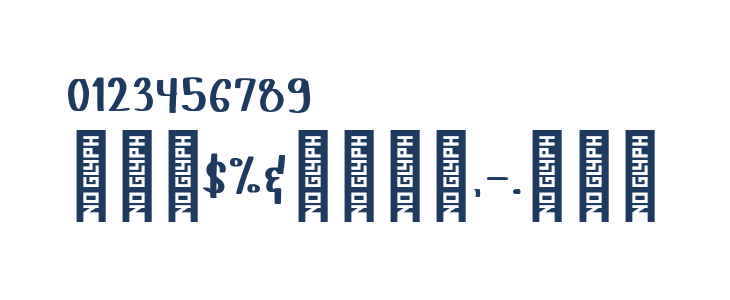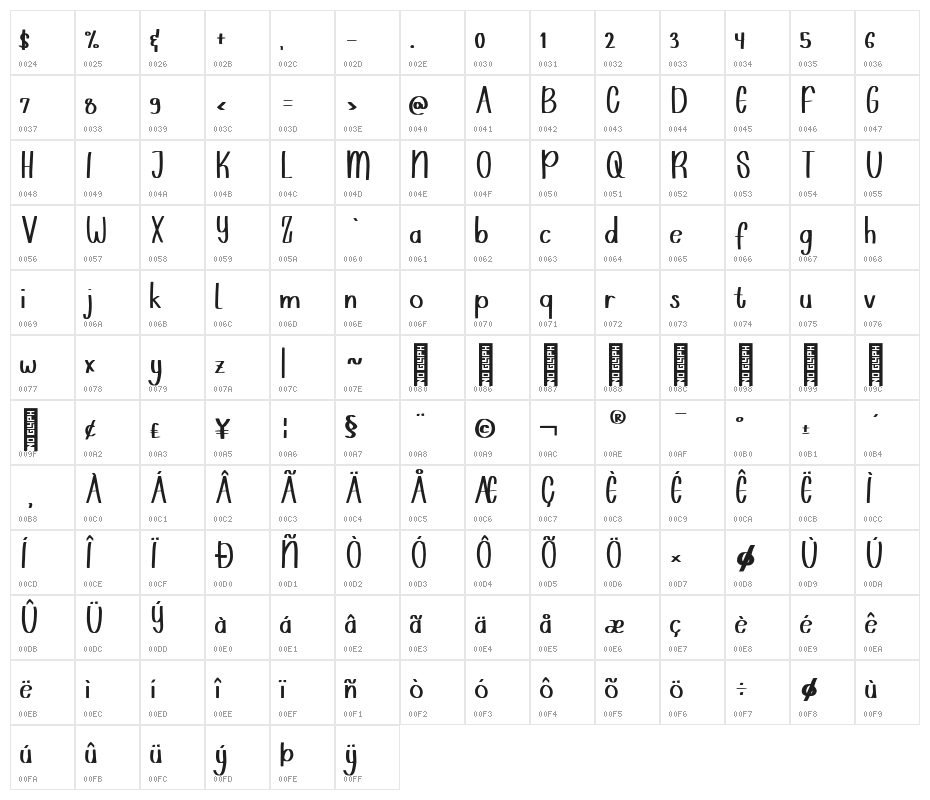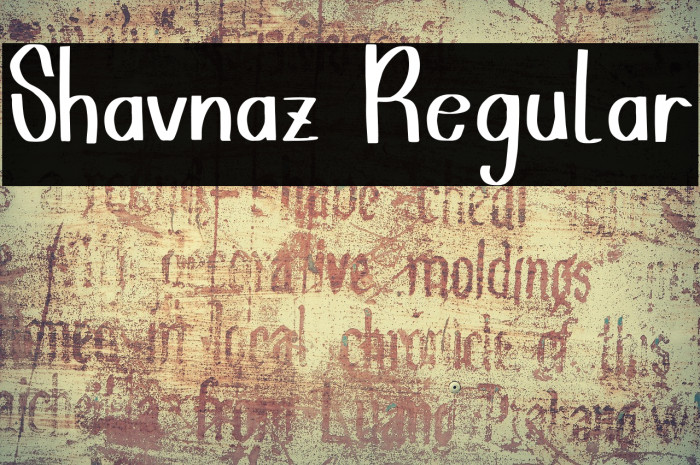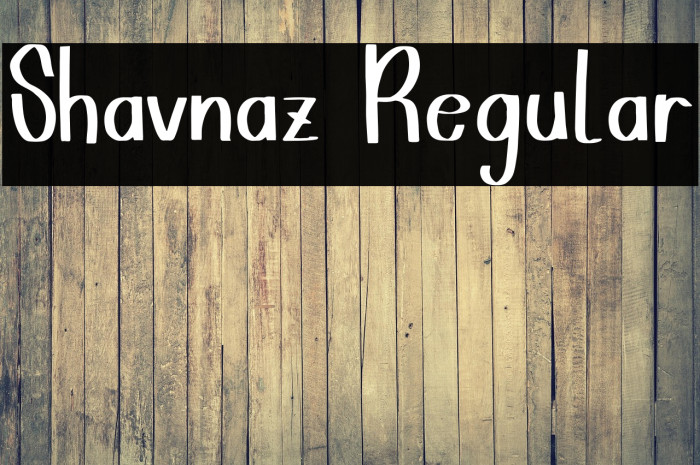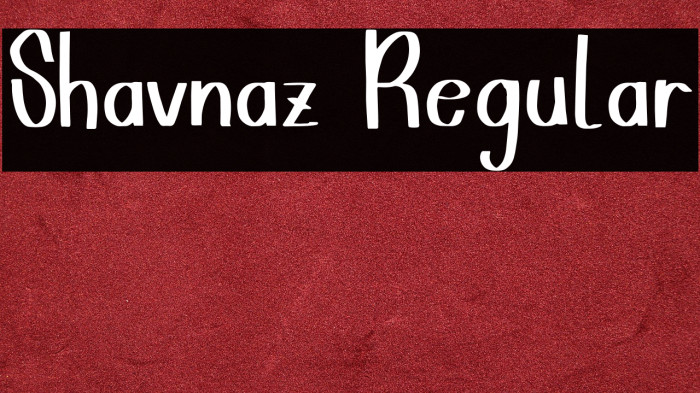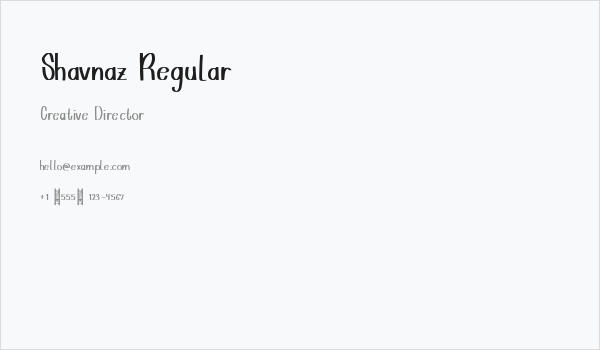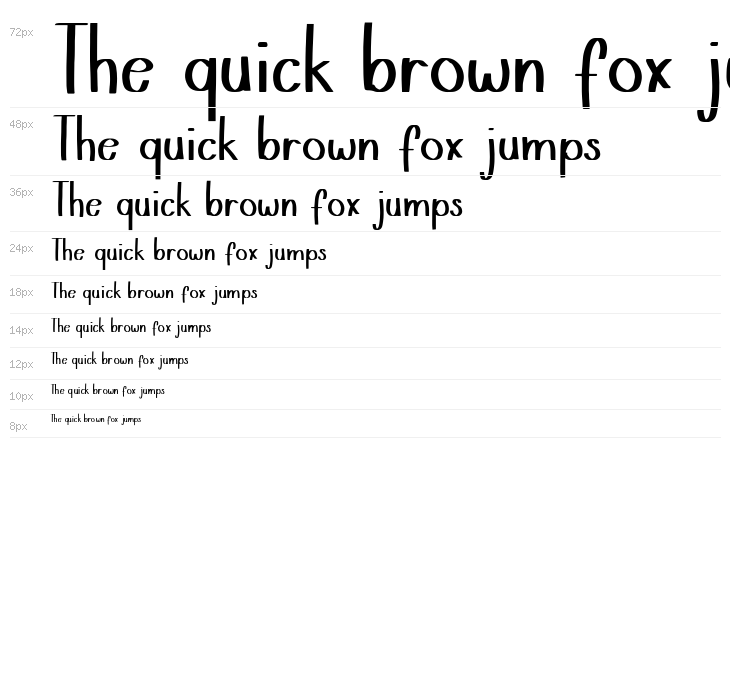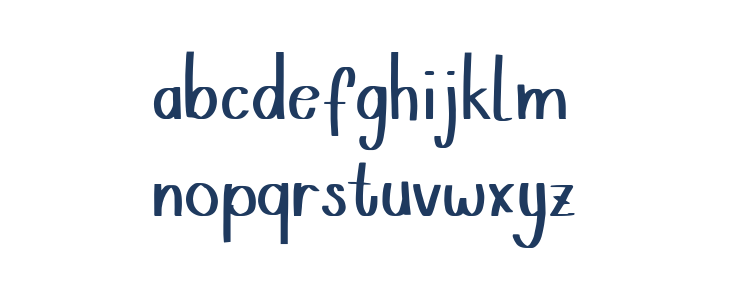
Shavnaz Regular Font
Shavnaz Regular Description
This font features a playful and whimsical design with a handwritten style. The characters have a unique and quirky appearance, with varying stroke widths that add a dynamic feel. The uppercase letters are tall and slightly narrow, while the lowercase letters maintain a consistent flow with rounded edges. The numbers are bold and easily readable, complementing the overall style. Special characters are creatively designed, adding to the font's charm. This font is perfect for projects that require a fun and informal touch, such as children's books, greeting cards, or playful branding.
| Proposed Projects | Ideal for children's books, greeting cards, playful branding, and creative projects. |